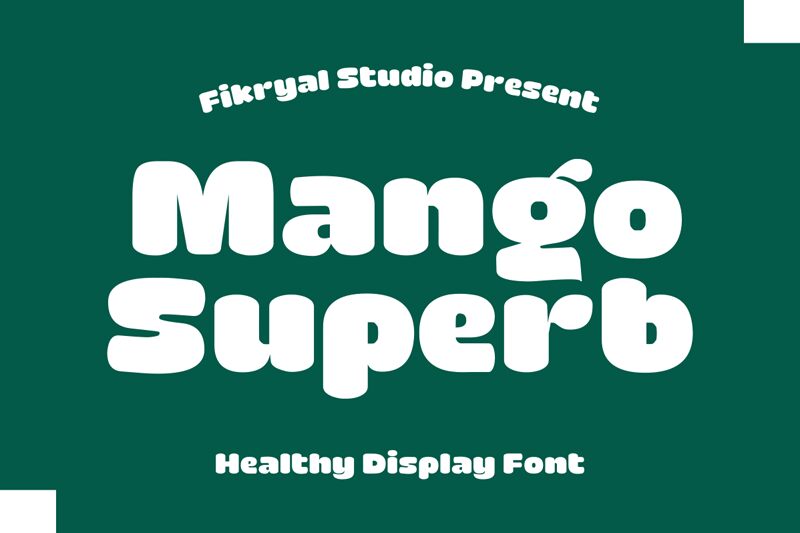
Mango Superb font by Fikryal Studio is a cheerful and contemporary fancy typeface that brings a dash of nostalgia to any project. Approachable and expressive, it is a versatile and engaging option for those who want to make a bold visual statement. A free font that is modern in nature, this font holds the distinctive features associated with fancy fonts making it quirky, unique, and dominating.
Add it to book designs, titles, and headings of websites and digital projects, or printed promotions, flyers, and in-store display signage. Mango Superb is engaging; put it to good use in designing your new business plan posters, pamphlets, label stickers, and so on.